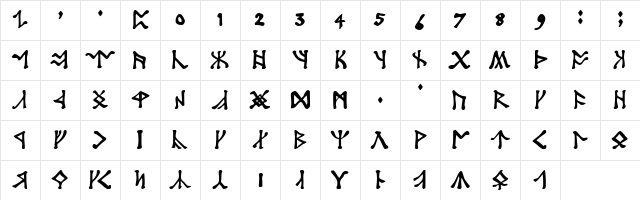
Angerthas Normal
Design Context for Angerthas
Angerthas is a composed and adaptable typeface that performs quietly and consistently across a wide range of design contexts.